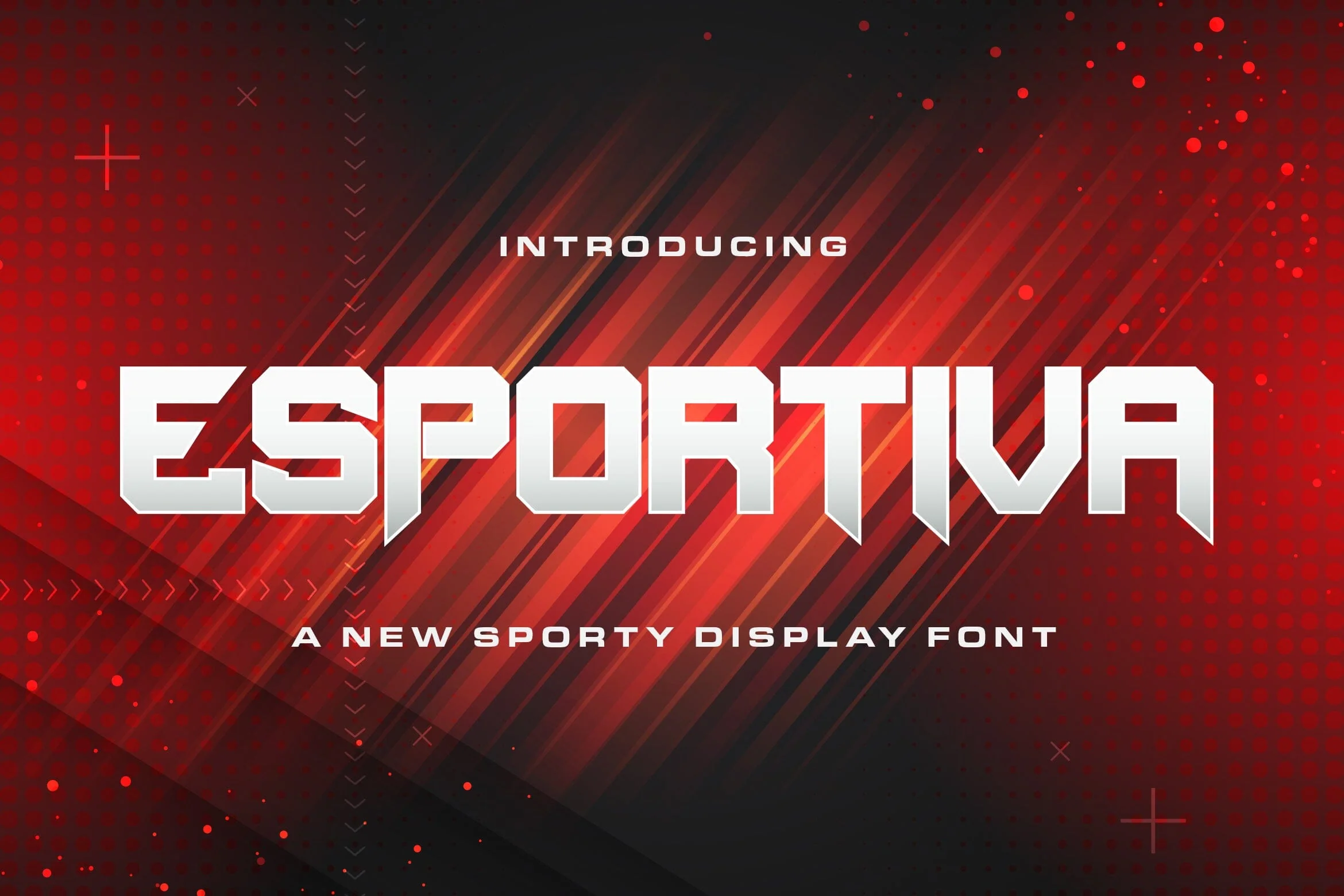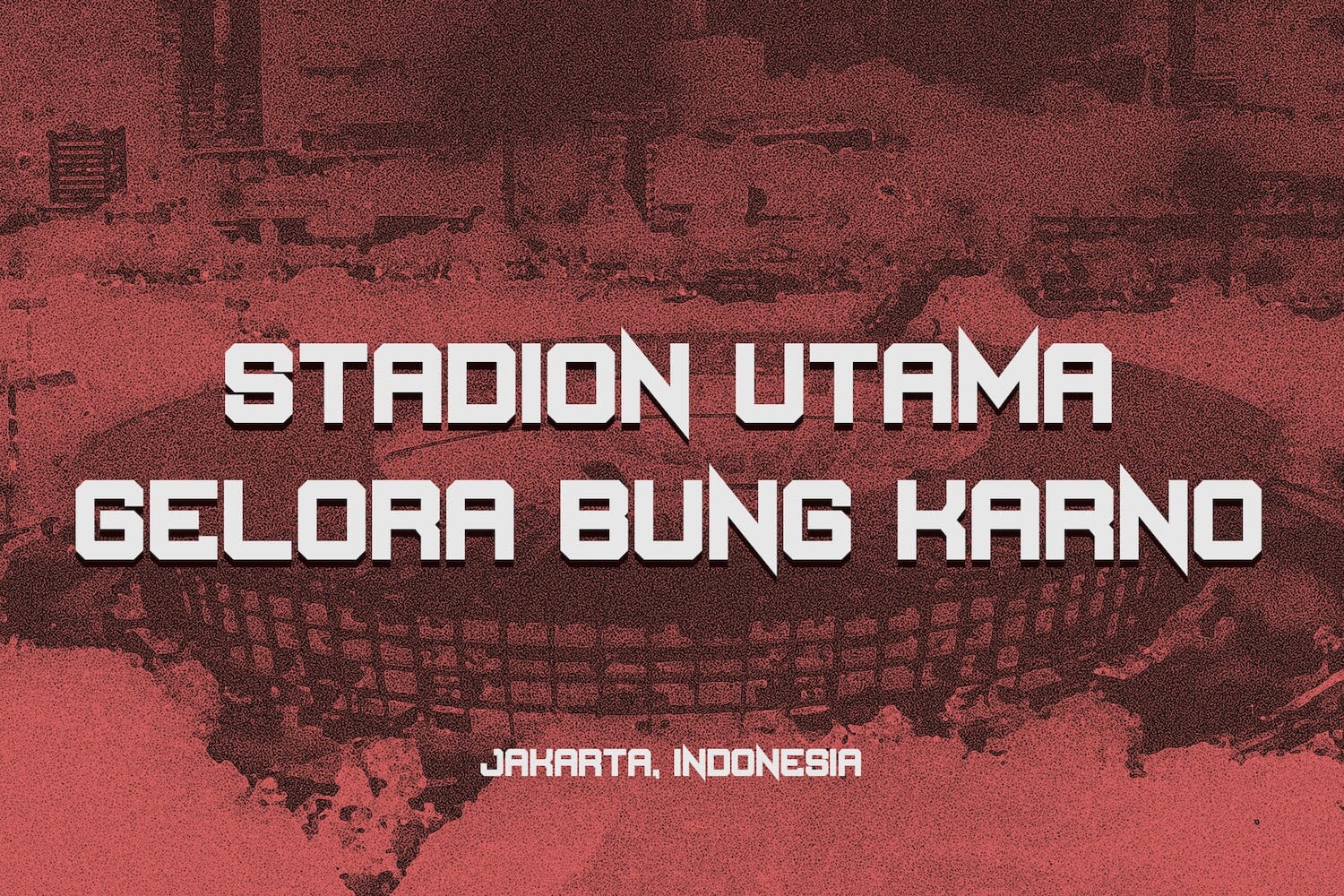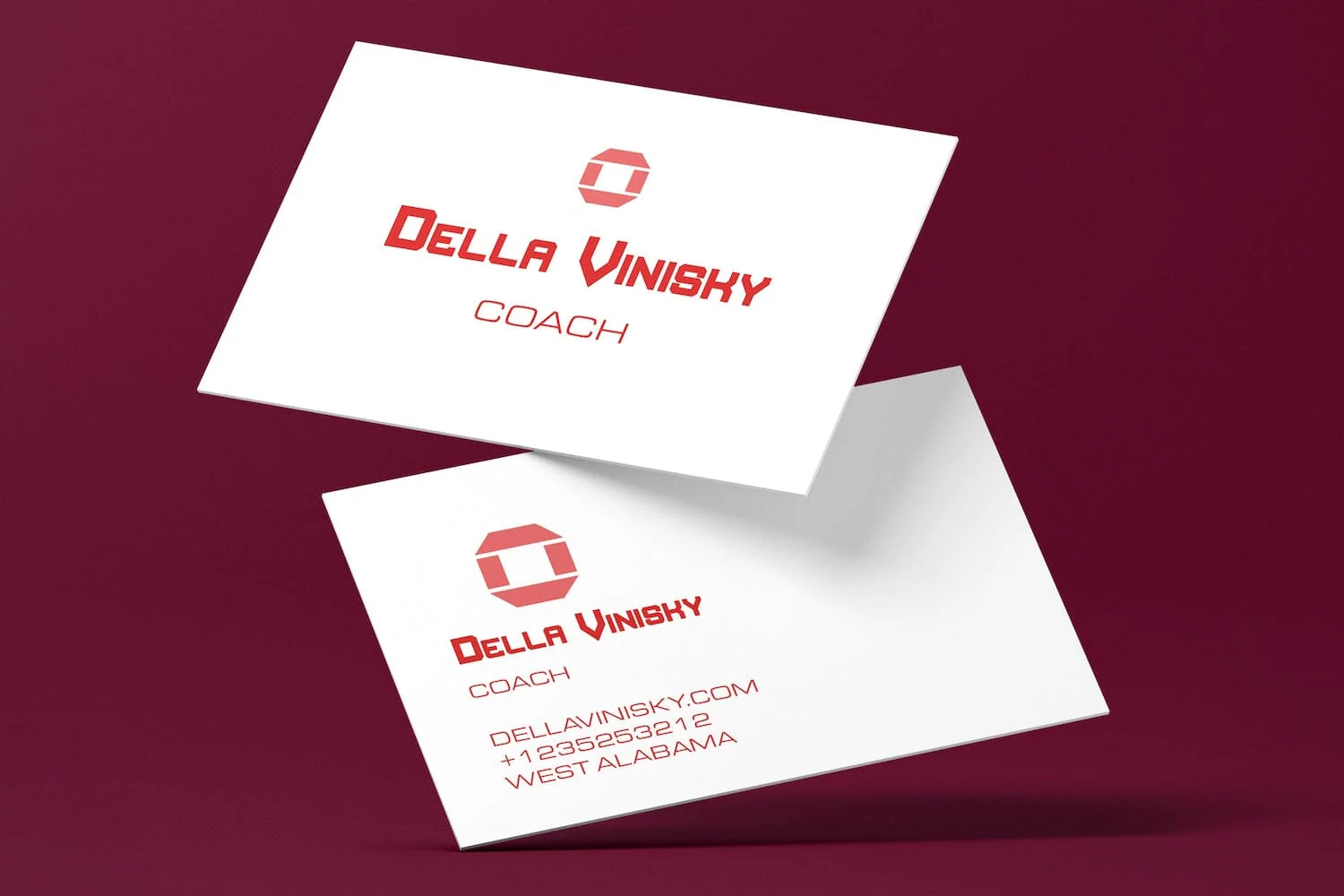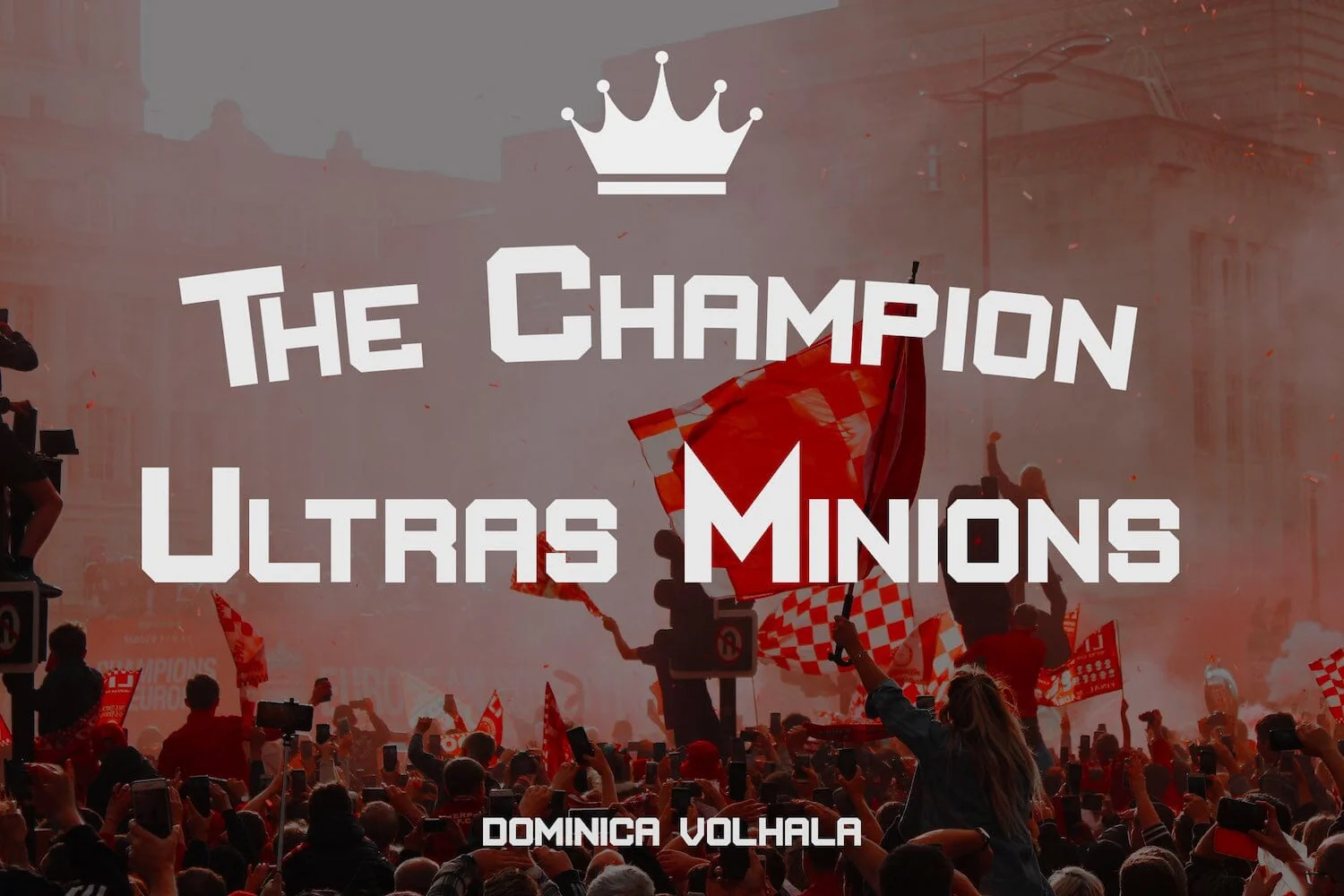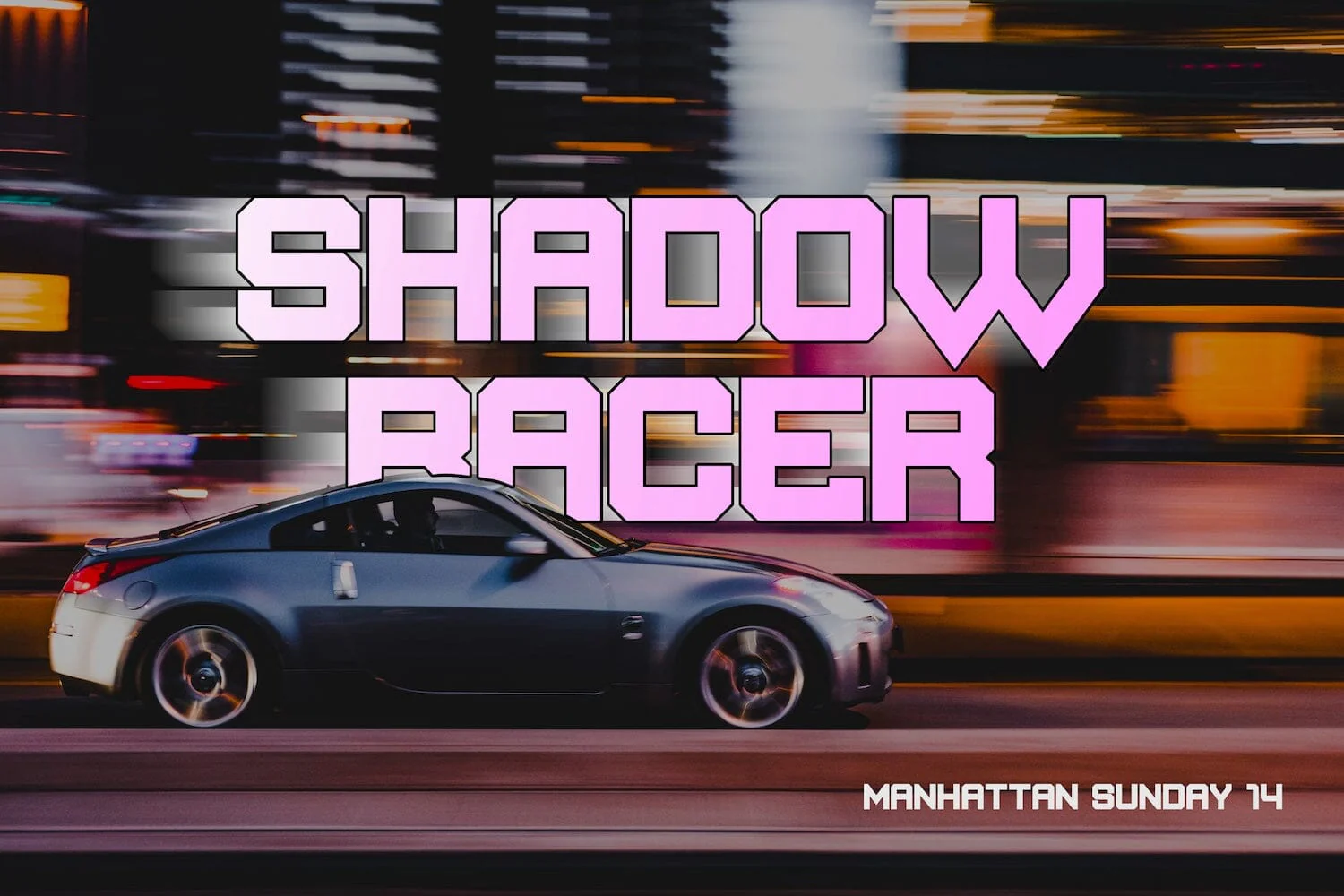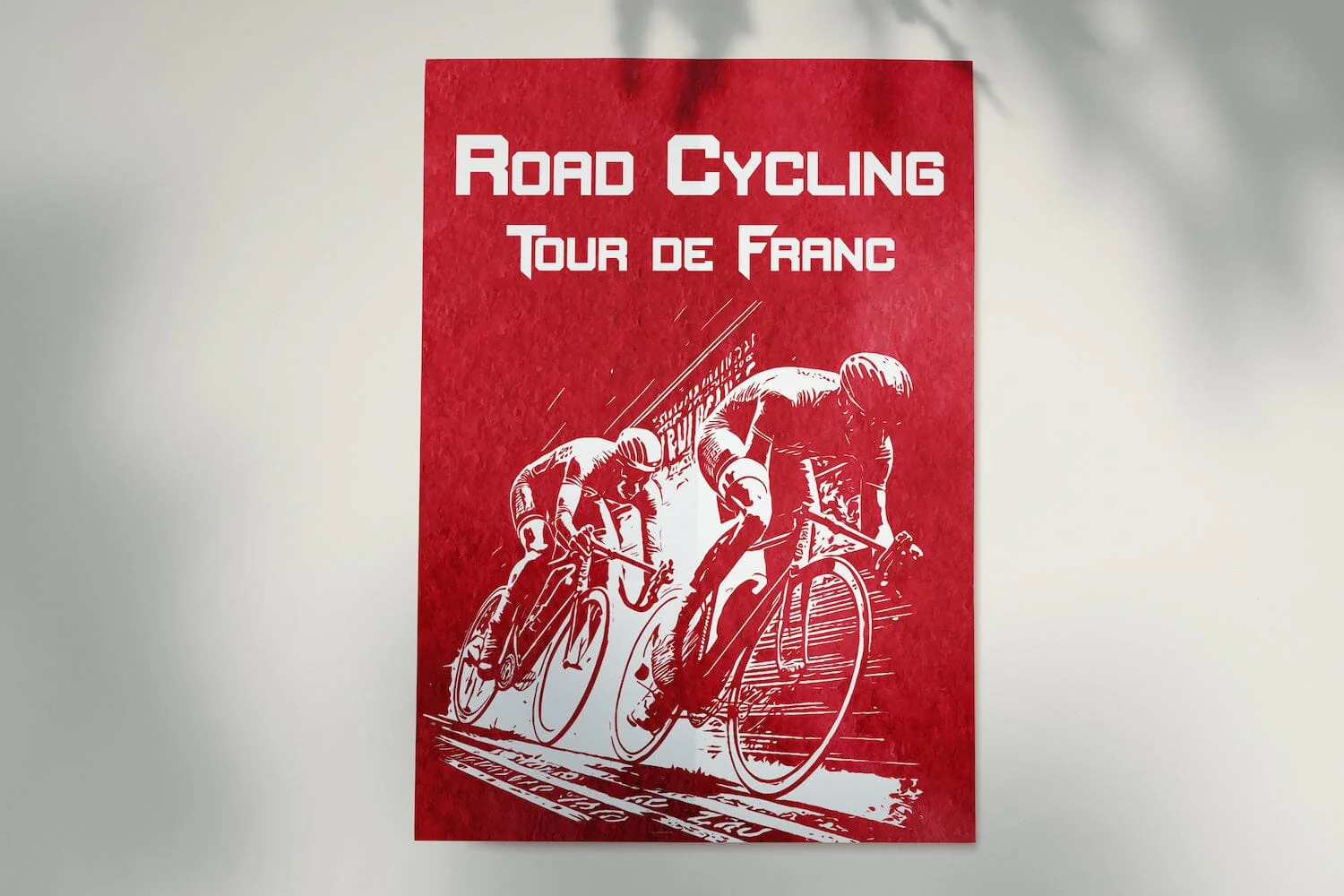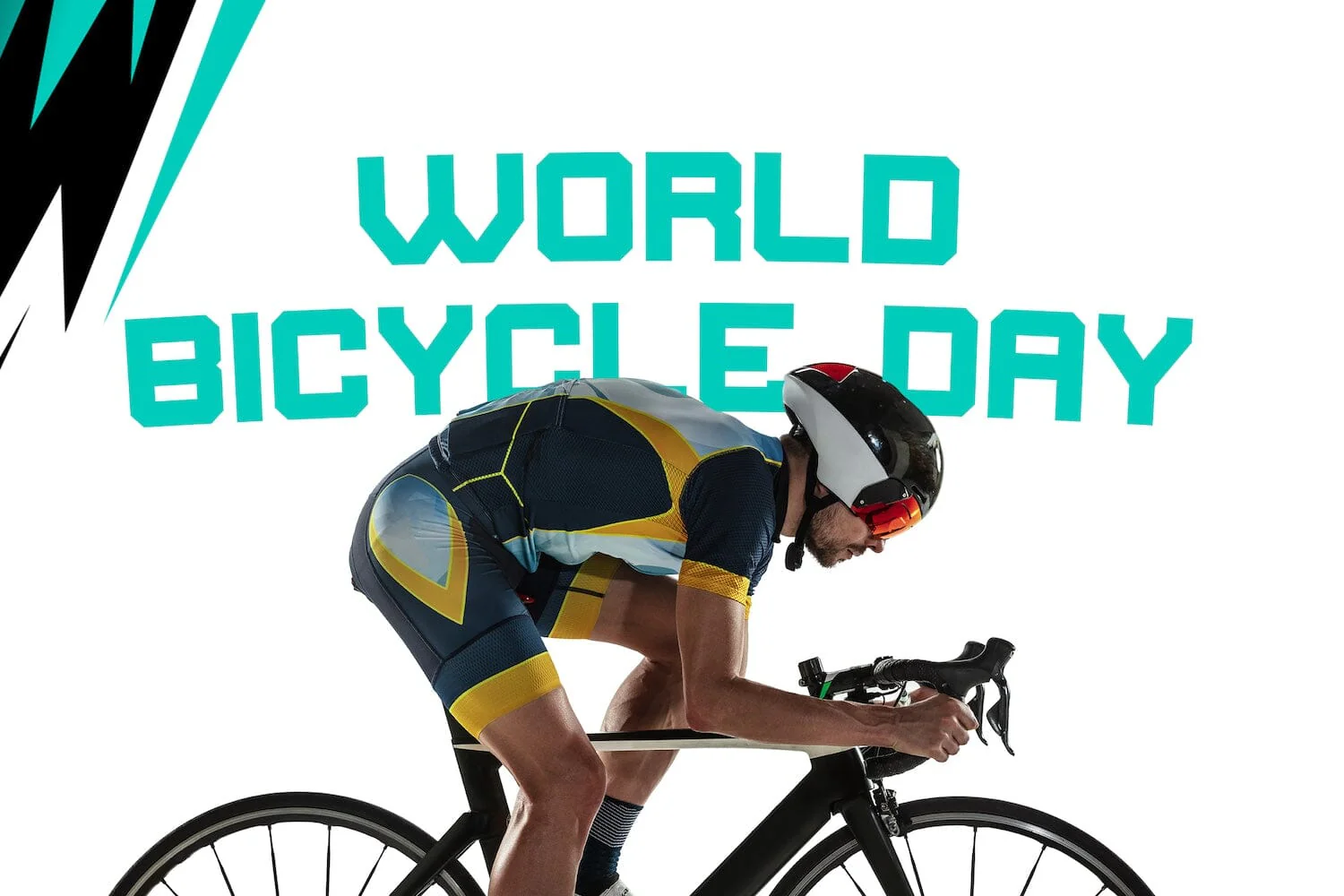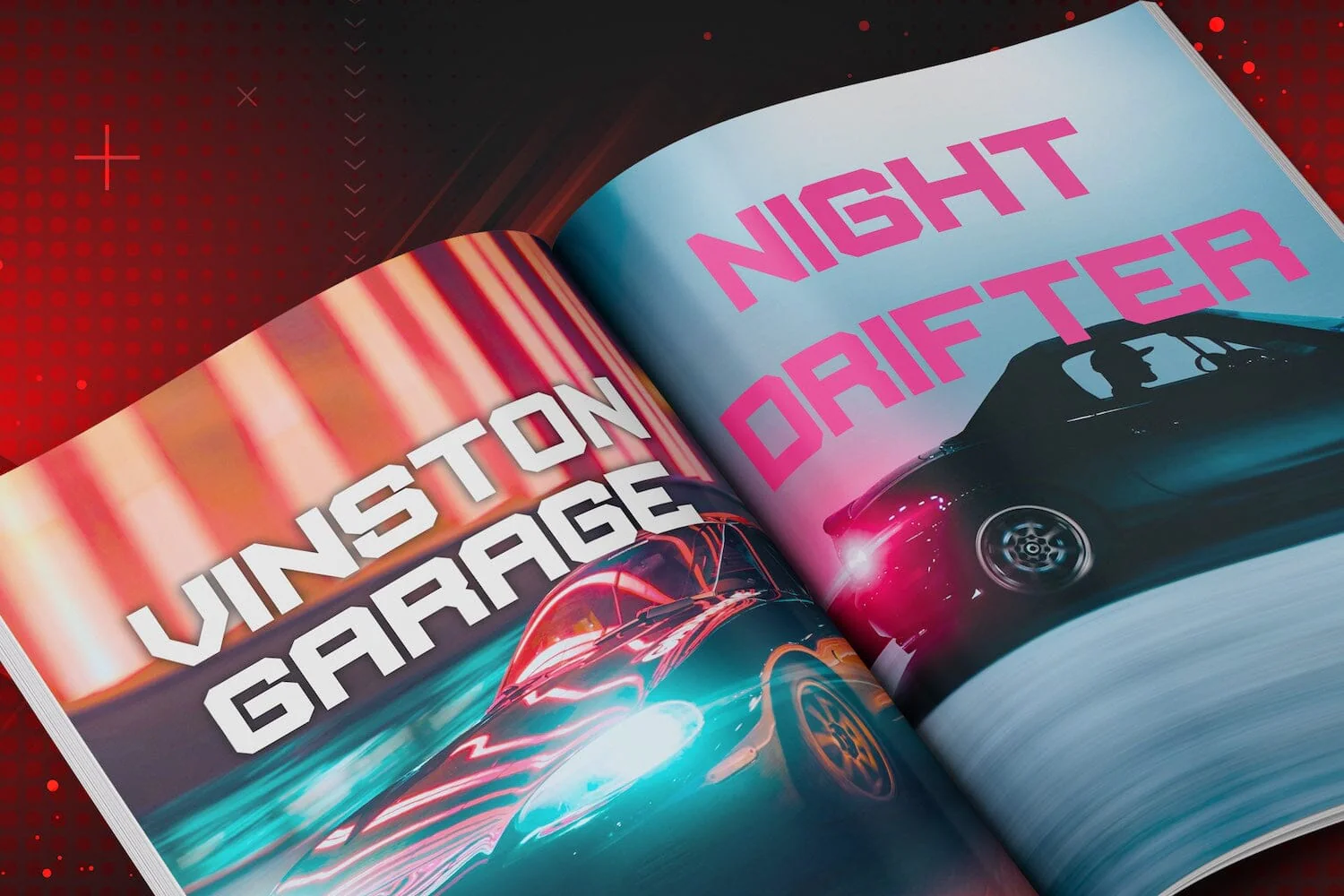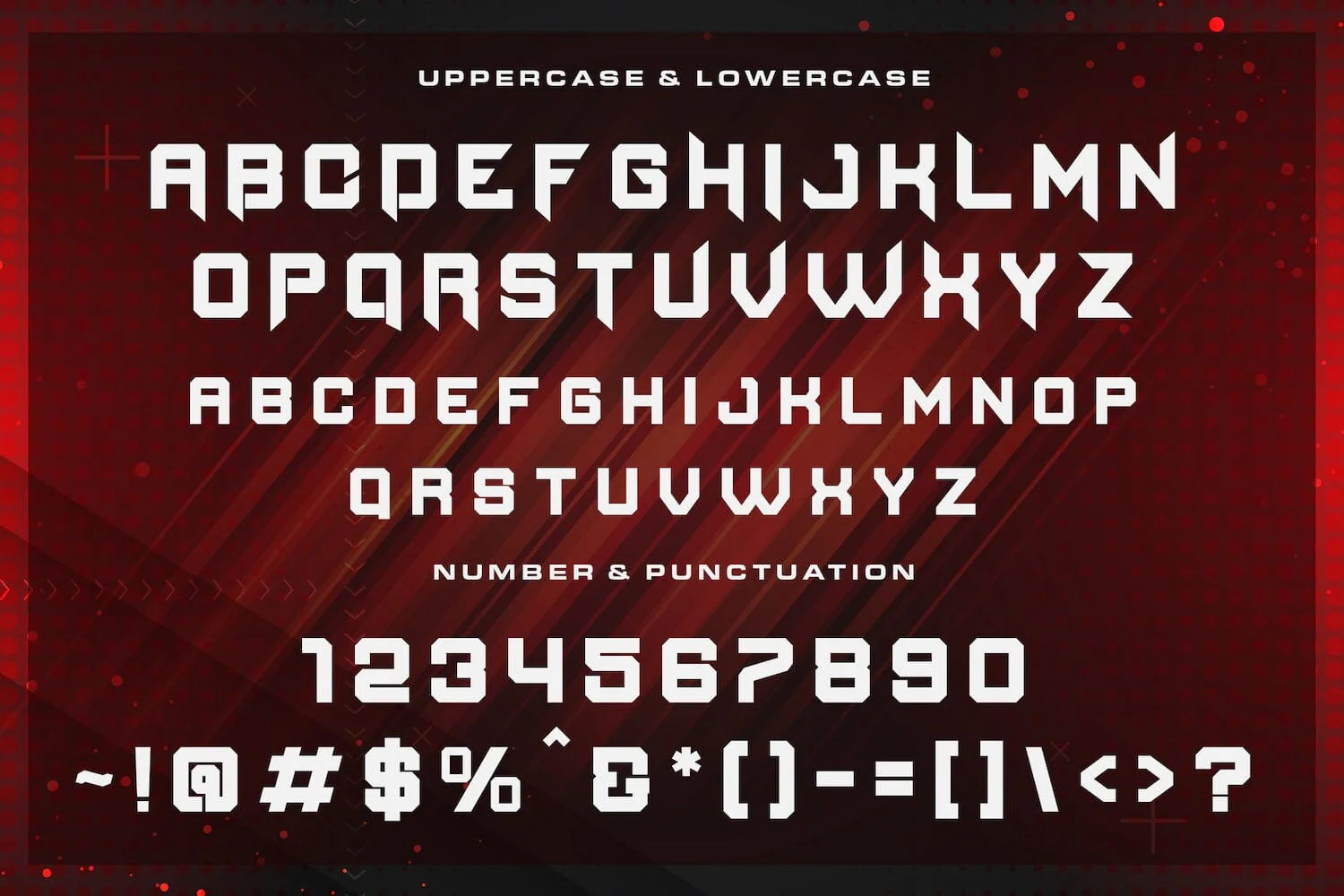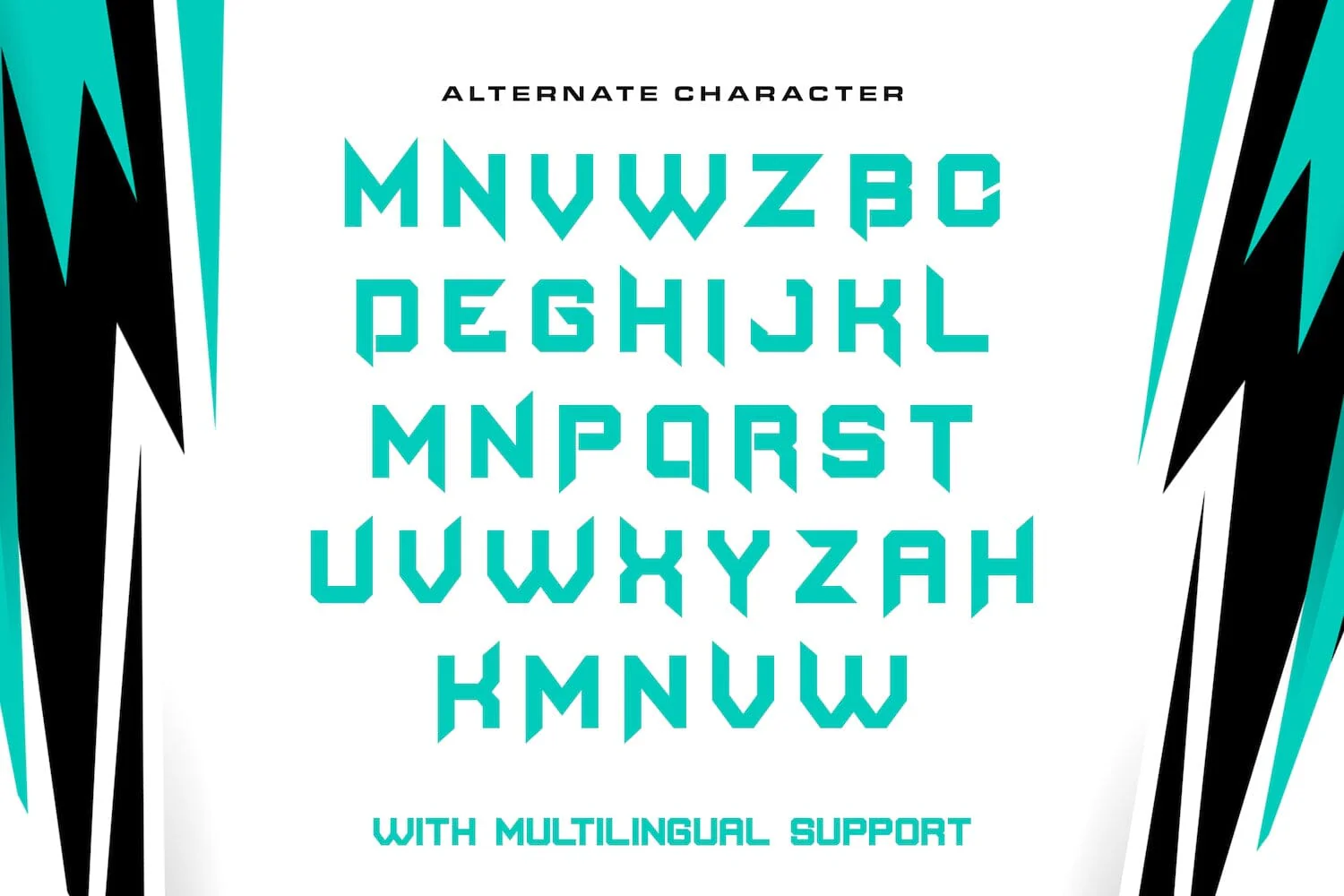
Esportiva - Sporty Display Font
Introducing Esportiva - Sporty Display Font
Esportiva is a sporty and modern display font. This playfully conceptual typeface font will look truly outstanding in a wide range of contexts. This font is very suitable for your any sports needs.
Introducing Esportiva - Sporty Display Font
Esportiva is a sporty and modern display font. This playfully conceptual typeface font will look truly outstanding in a wide range of contexts. This font is very suitable for your any sports needs.